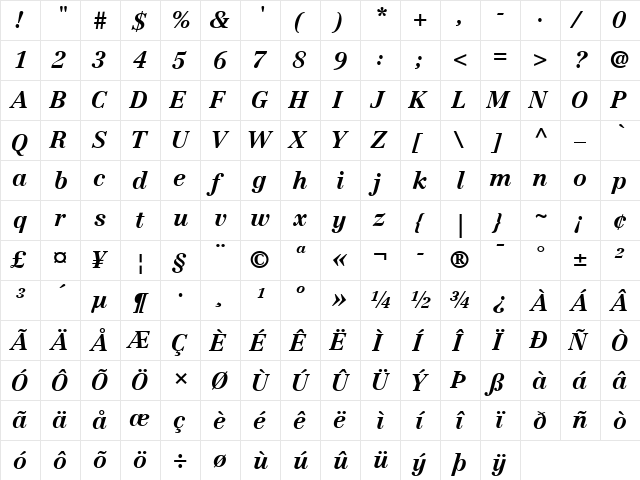
Centennial LT 55 Roman Bold Italic
Design Context for Centennial LT 55 Roman Typeface
Centennial LT 55 Roman takes a measured approach to typography — its balanced proportions and neutral character make it a reliable workhorse for both digital and print work. The slanted form adds forward momentum and visual energy. Its bold stroke weight gives it real presence on the page.
Pro Tip: Try Centennial LT 55 Roman for annotation and caption copy alongside an upright companion — the contrast in angle creates a dynamic but ordered typographic system.